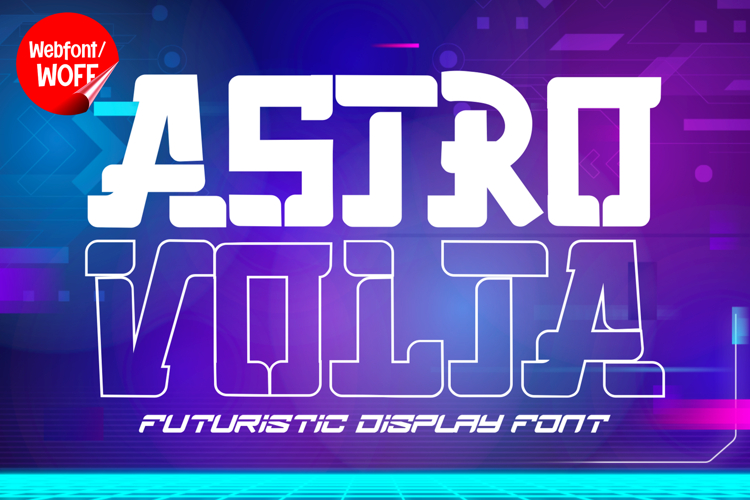
Astro Volta | Space Futuristic Sport Webfont for Dynamic Ide
Astro Volta is a space futuristic sport webfont designed to bring speed, power, and cosmic-inspired visuals into modern website design. Combining elements of futuristic technology, athletic performance, and space aesthetics, this font features sharp geometry and dynamic letterforms that create a bold and high-energy appearance. It is an excellent choice for projects that require a strong, modern, and forward-thinking typographic identity.
Astro Volta includes a complete set of uppercase characters designed with a futuristic sports-inspired structure. The letterforms feature angular cuts, sleek lines, and precise construction that reflect both motion and innovation. These characteristics make it ideal for headlines, banners, hero sections, and featured content where strong visual impact is essential.
In addition to letters, the font includes numbers and punctuation, allowing flexible usage across various parts of a website. It works well for sports branding, esports platforms, automotive content, gaming interfaces, tech promotions, and digital campaigns. Each character maintains a consistent futuristic sport style, ensuring a cohesive and unified visual identity throughout the layout.
With multilingual support, Astro Volta includes a wide range of accented characters, making it suitable for international websites and global audiences. This allows content to be displayed clearly across different languages while preserving the sleek and high-tech aesthetic.
The space futuristic sport style of Astro Volta makes it especially suitable for technology startups, gaming websites, racing brands, fitness platforms, and creative portfolios. Its cosmic and energetic design adds intensity and innovation, helping websites stand out in competitive digital environments. The futuristic tone also enhances branding that focuses on speed, performance, and advancement.
Despite its bold and angular appearance, Astro Volta is designed with readability in mind. The spacing and proportions are carefully balanced to ensure clarity, particularly in display sizes. This makes it effective for impactful headings and short content elements where both style and usability are important.
Astro Volta is a webfont that combines space-inspired aesthetics with sports energy and modern digital performance. Its sharp forms, dynamic structure, and futuristic character create a distinctive typographic presence that enhances website design. For projects that require a fast, powerful, and visually engaging font, Astro Volta offers a strong and innovative solution.